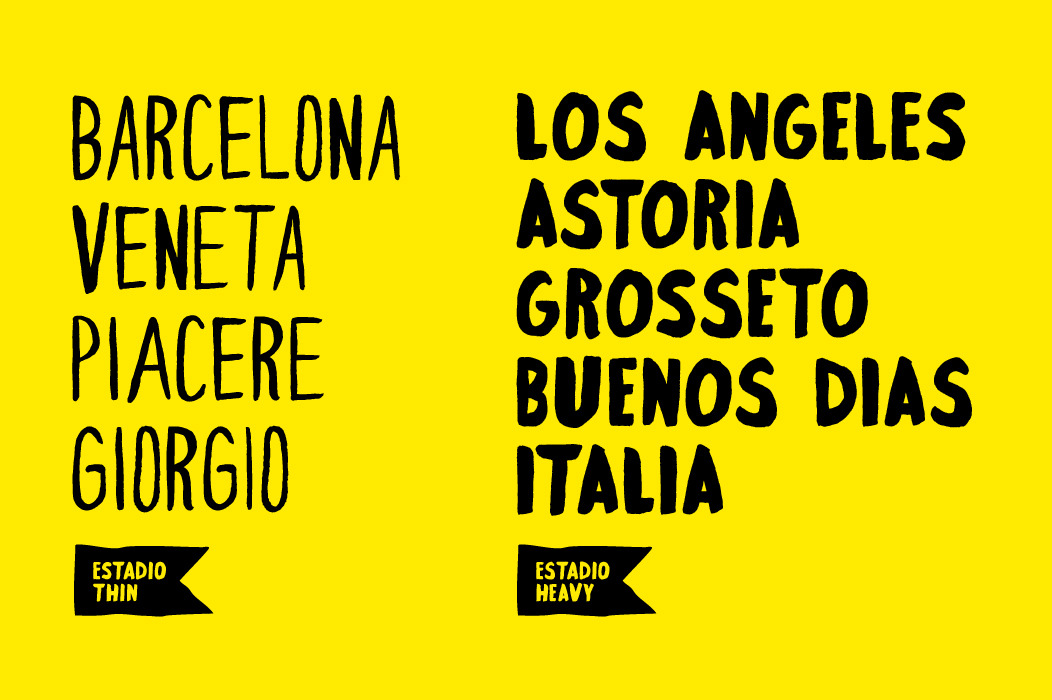
Estadio Font Family
Estadio is a hand-drawn font family in two different san Serif weights, thin and heavy. I’ve also created a handful of rad little illustrations, shapes, and inked ornaments which are available with the complete family or can be purchased separately. All english letters, special characters, and basic latin are included with each font.